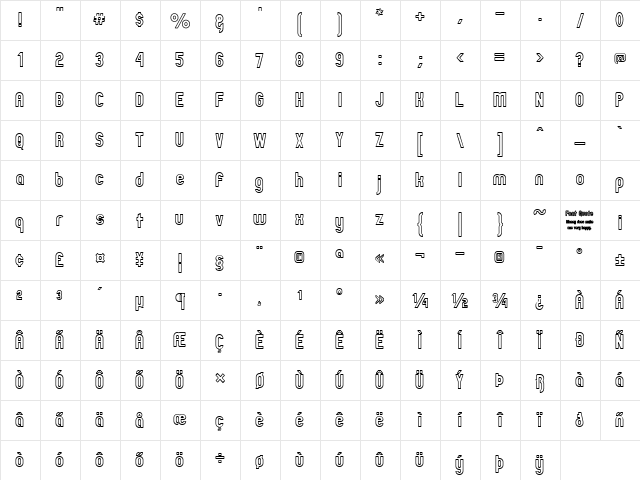
Zillah Modern Ouline Regular Font Preview
Zillah Modern Ouline Regular
Design Context for Zillah Modern Ouline Typeface
Zillah Modern Ouline takes a measured approach to typography — its balanced proportions and neutral character make it a reliable workhorse for both digital and print work.